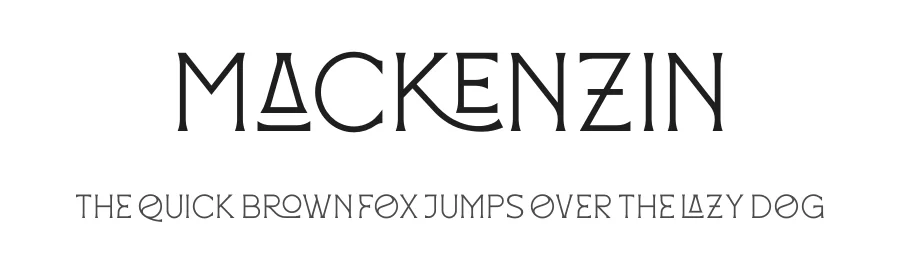
About Bandoengsche Font
Bandung is home to numerous examples of Dutch colonial architecture; most notably the tropical Art Deco architectural style. This typeface adapted from the finest Art Deco landmarks and signage in Bandung, and strongly added native elements of traditional Art Deco style. The main character is example of a harmonious mixture between West and East architectural styles.
This typeface fit with your posters, movie titles, and signage designs.
Bandoengsche Font is a decorative font that shines as a display or heading face. Pair it with a clean sans-serif or serif font for body text β the contrast creates a clear hierarchy while the two styles stay balanced and easy to read.